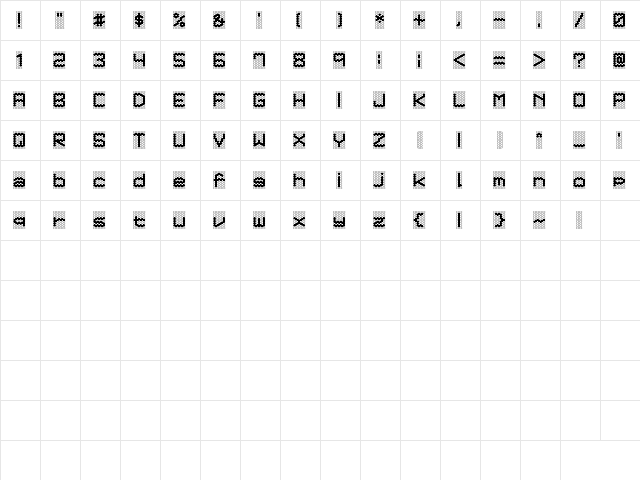
Honeycomb Regular
Design Context for Honeycomb Typeface
Honeycomb takes a measured approach to typography — its balanced proportions and neutral character make it a reliable workhorse for both digital and print work.